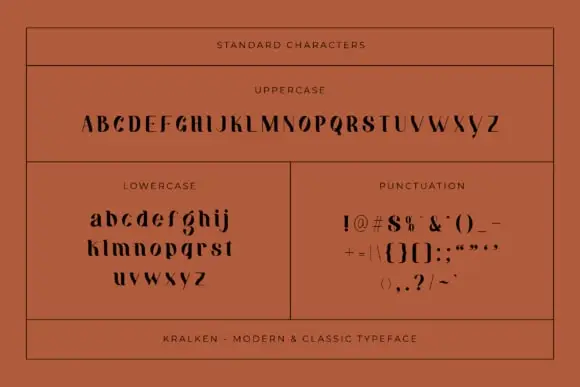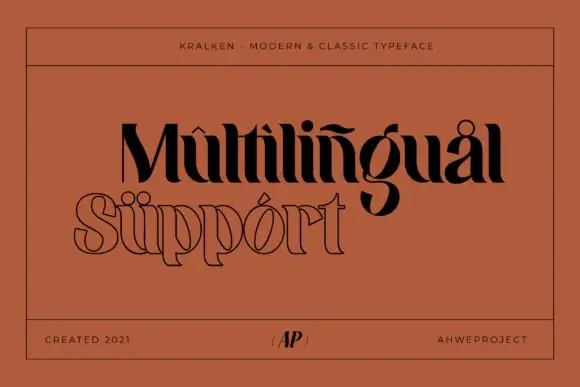
Ahweproject-Kralken Font
The Ahweproject-Kralken Font is a unique typeface that combines modern aesthetics with a touch of artistic flair. This font is designed to elevate your projects, whether for branding, logos, or digital content.
• Style: Display
• Perfect for creating eye-catching logos and branding materials
• Use in digital designs for a modern look
• Great for posters, flyers, and other print media